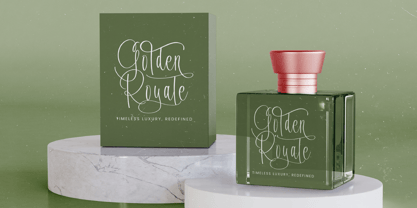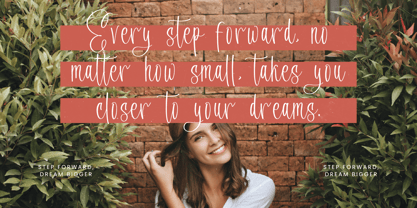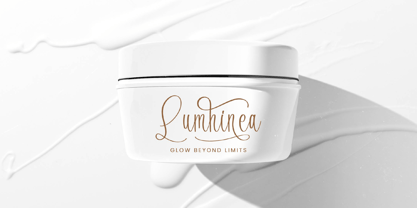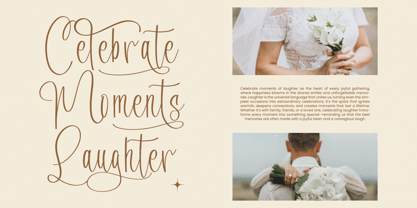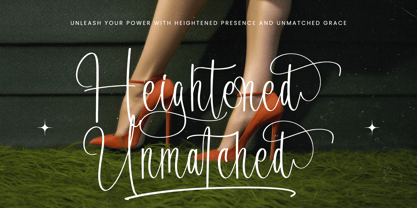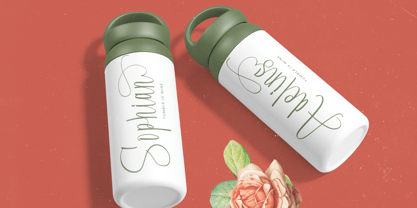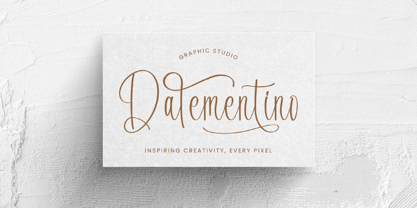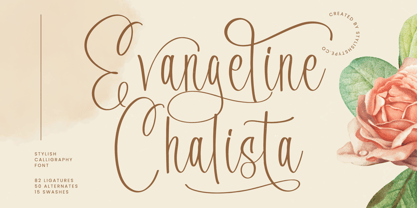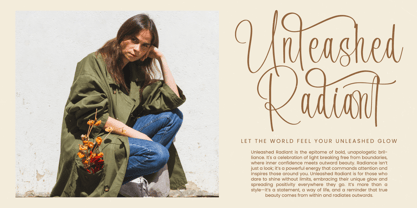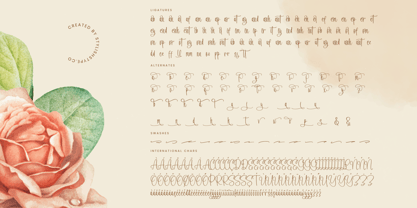
Evangeline Chalista
The Evangeline Chalista Font Family was designed by Heru Utama Putra and published by Stylishtype Studio. Evangeline Chalista contains 2 styles and family package options. More about this family
Evangeline Chalista - Stylish Calligraphy Font , from Stylishtype, Suitable for any projects such as: logos, branding projects, homeware designs, product packaging, mugs, quotes, posters, shopping bags, t-shirts, book covers, name card, invitation cards, greeting cards, label, photography, watermark, special events, and all your other luxury and beautiful projects that need a Luxury Script taste.